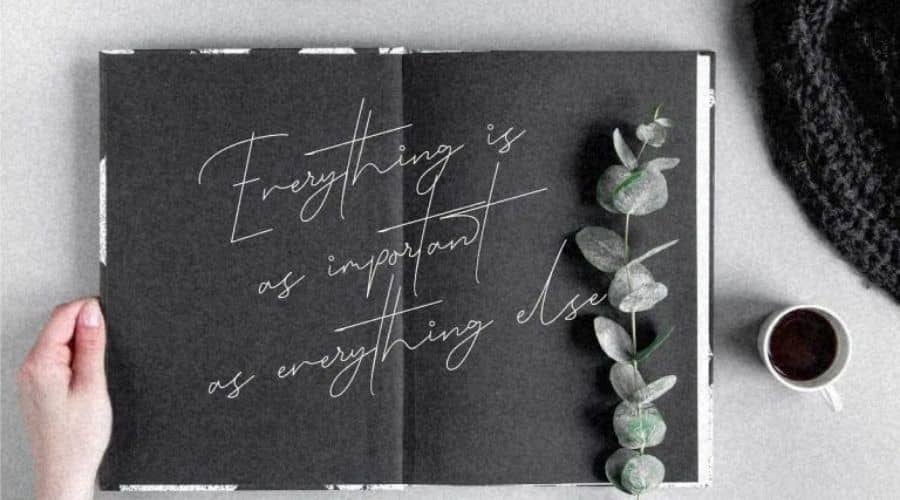
Queenstown Signature Font
The Queenstown Font is now available. Queenstown is a lovely, plentiful, and high-class fashion typeface with a dual serif and modern script signature. Give your projects a true homemade sense with a handwritten script with a natural and beautiful flow. The Font is created and published by type line studio on March 7, 2019. The font is available in both OTF and TTF file types.
This Font is ideal for fashion branding logos, book titles, logo photography, watermark photography, social media, wedding invites, taglines, headlines, and signatures, among other things.